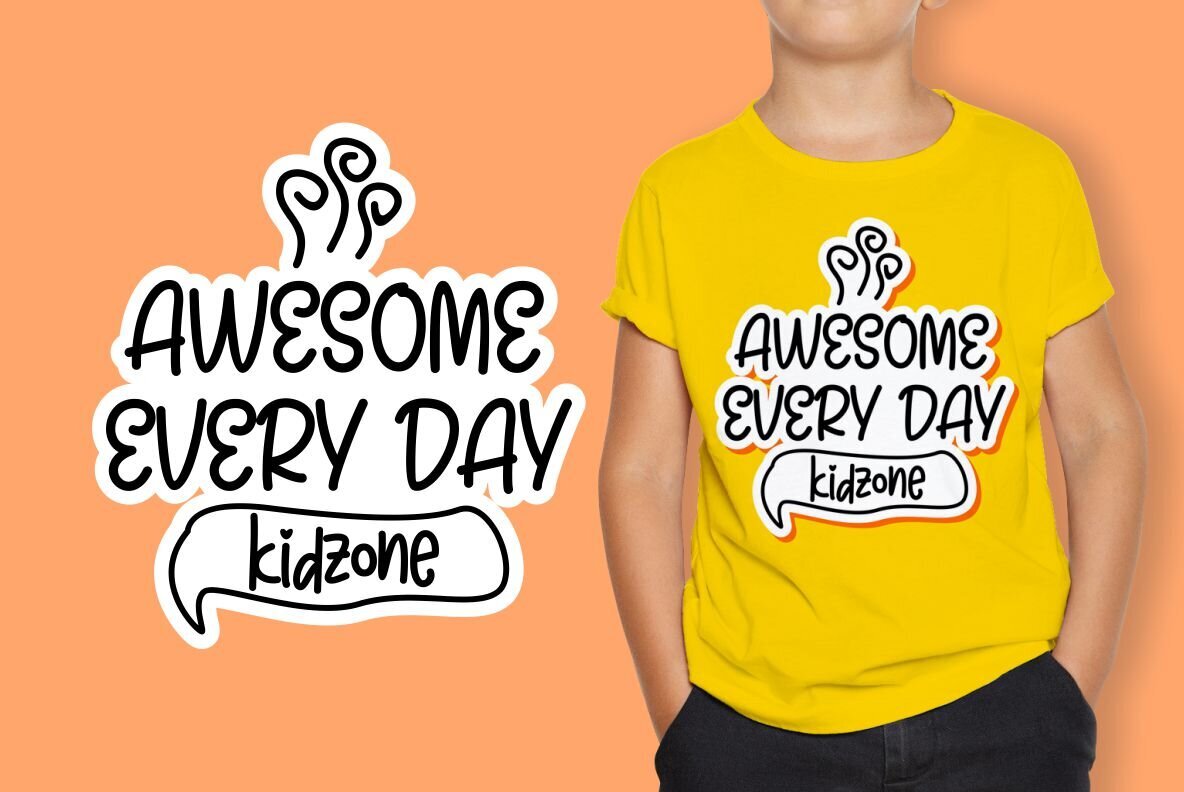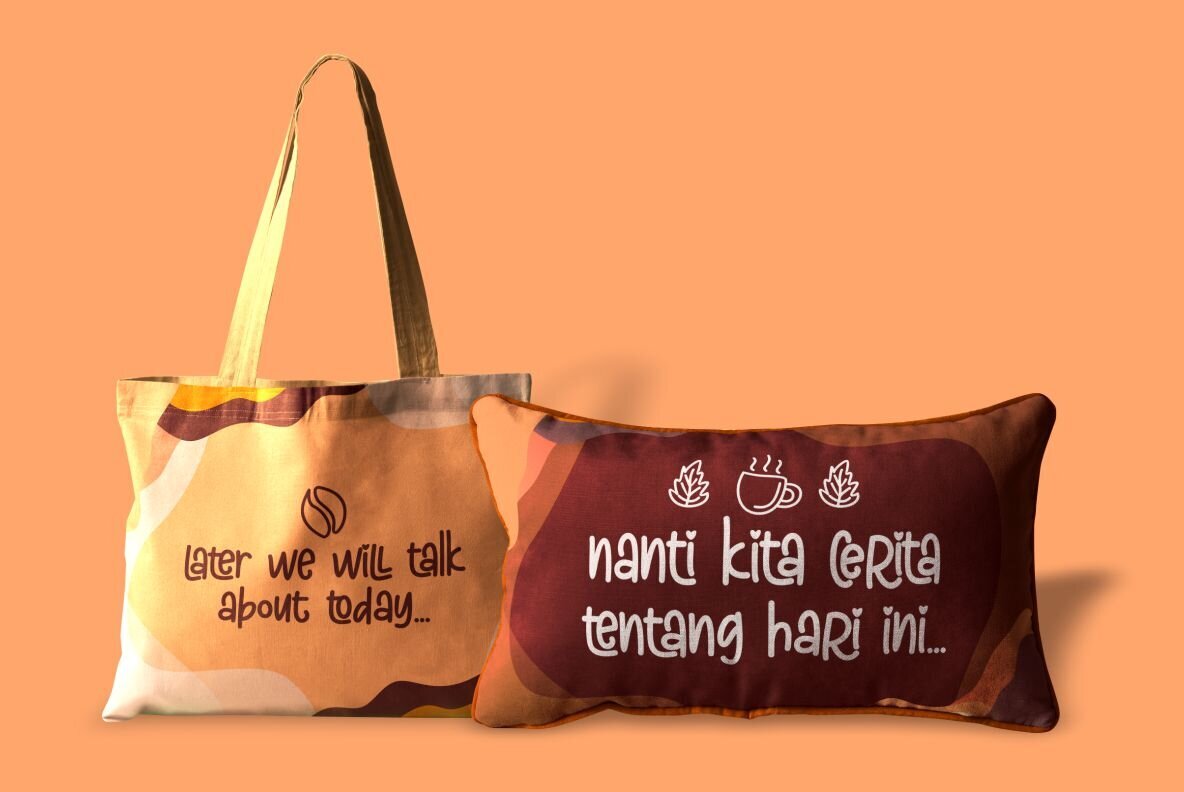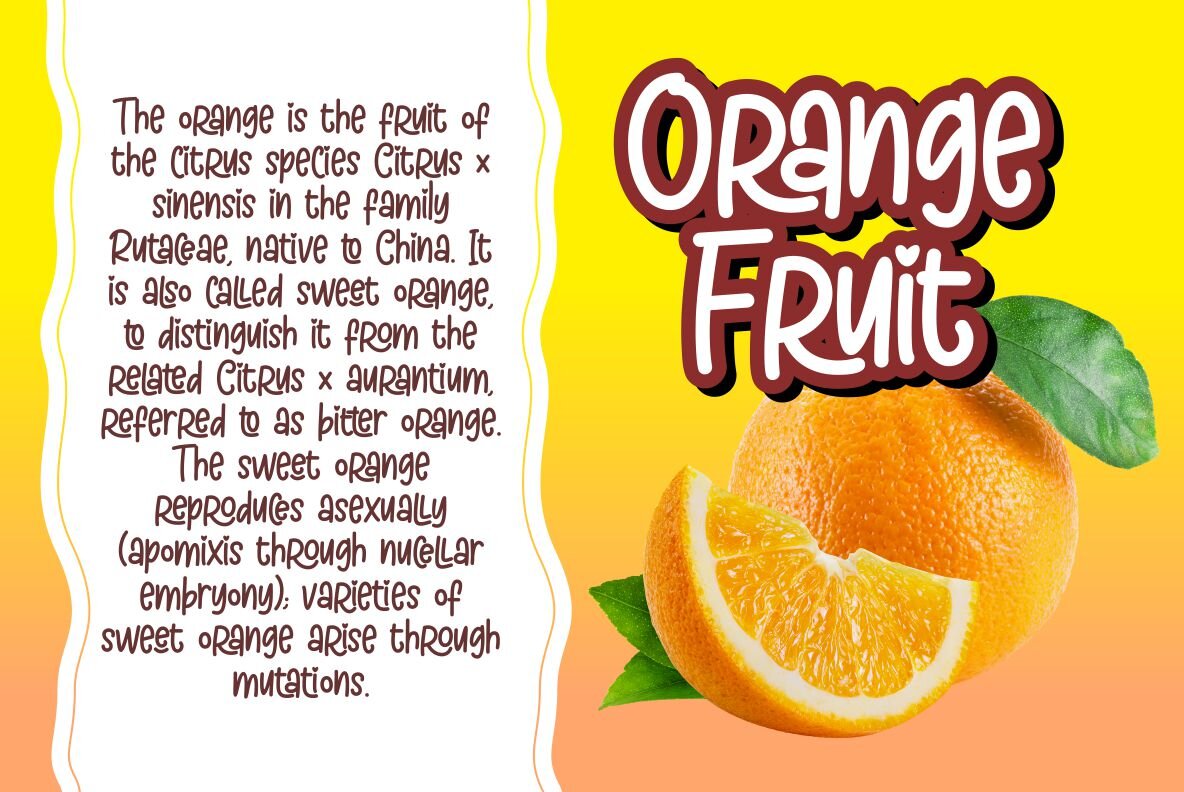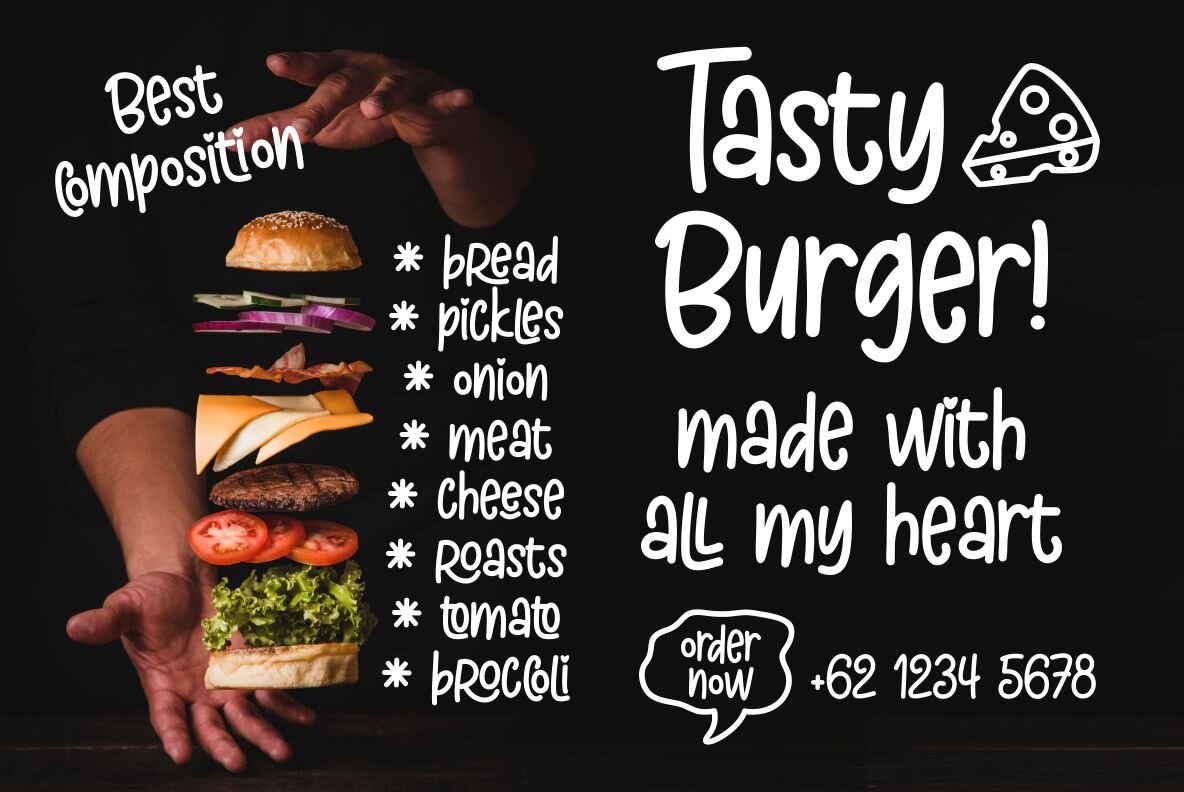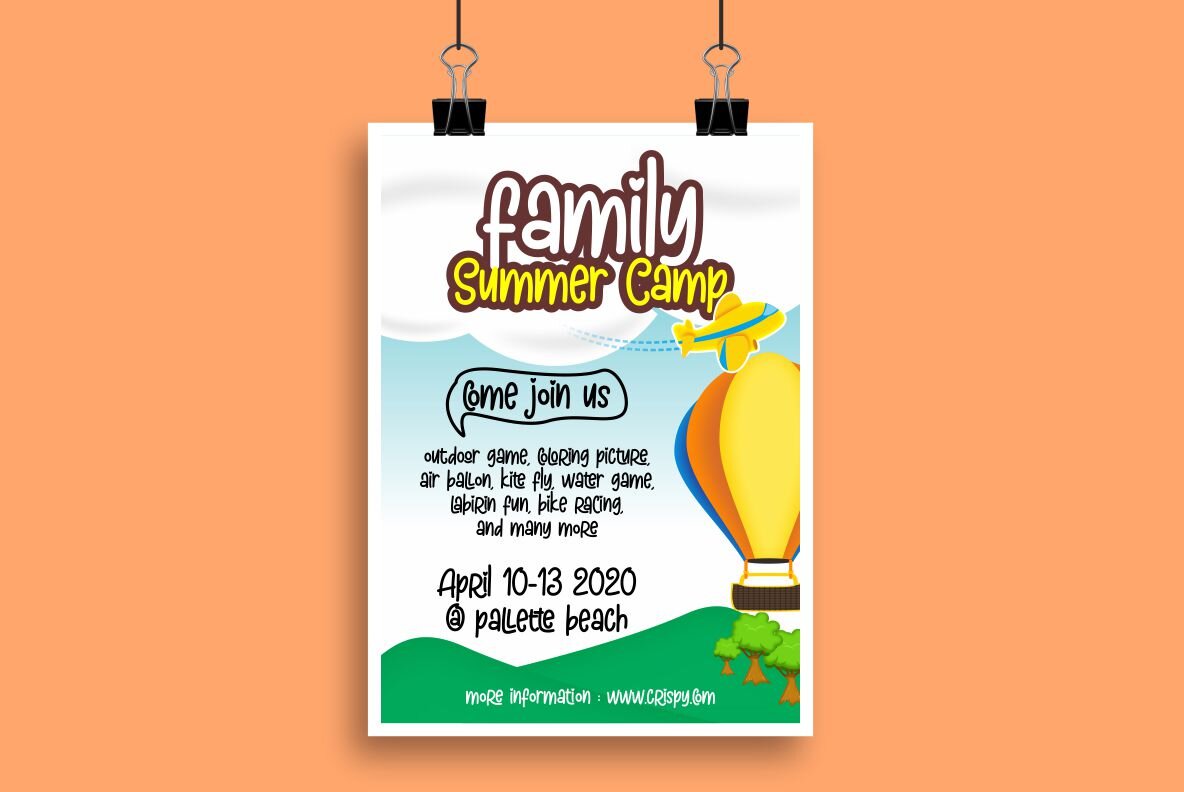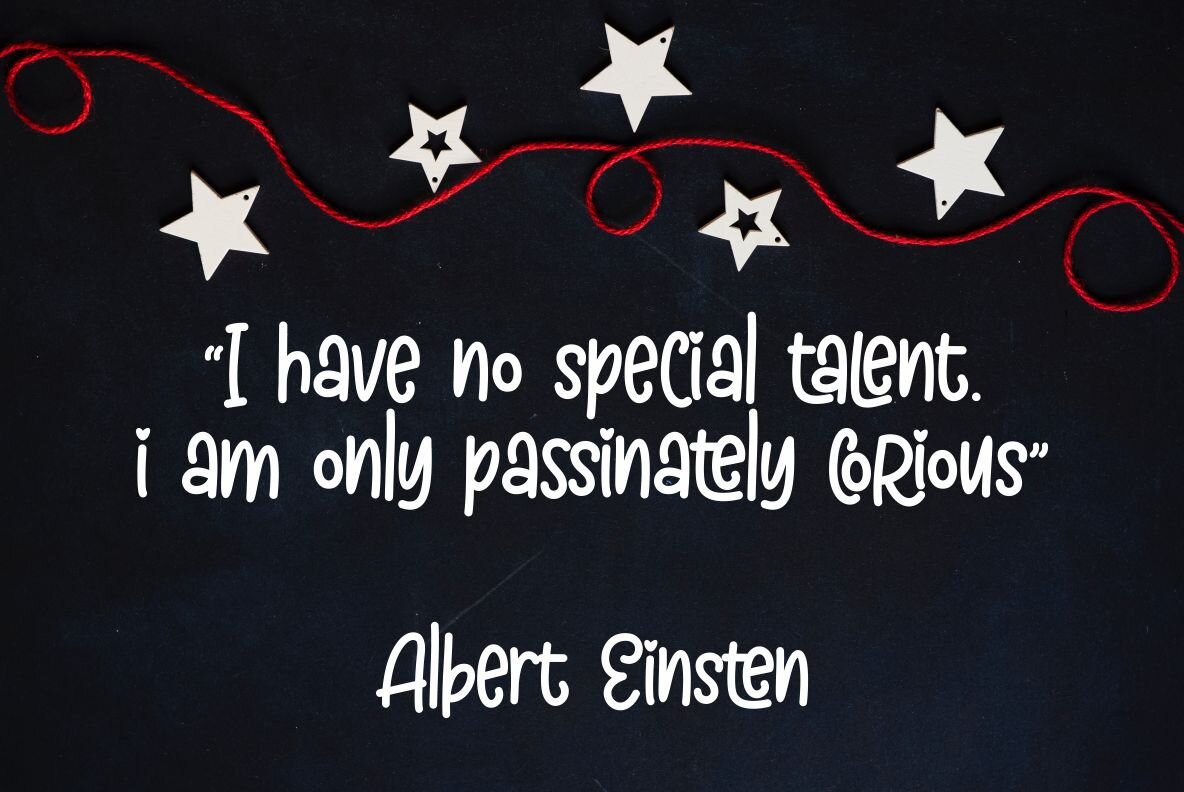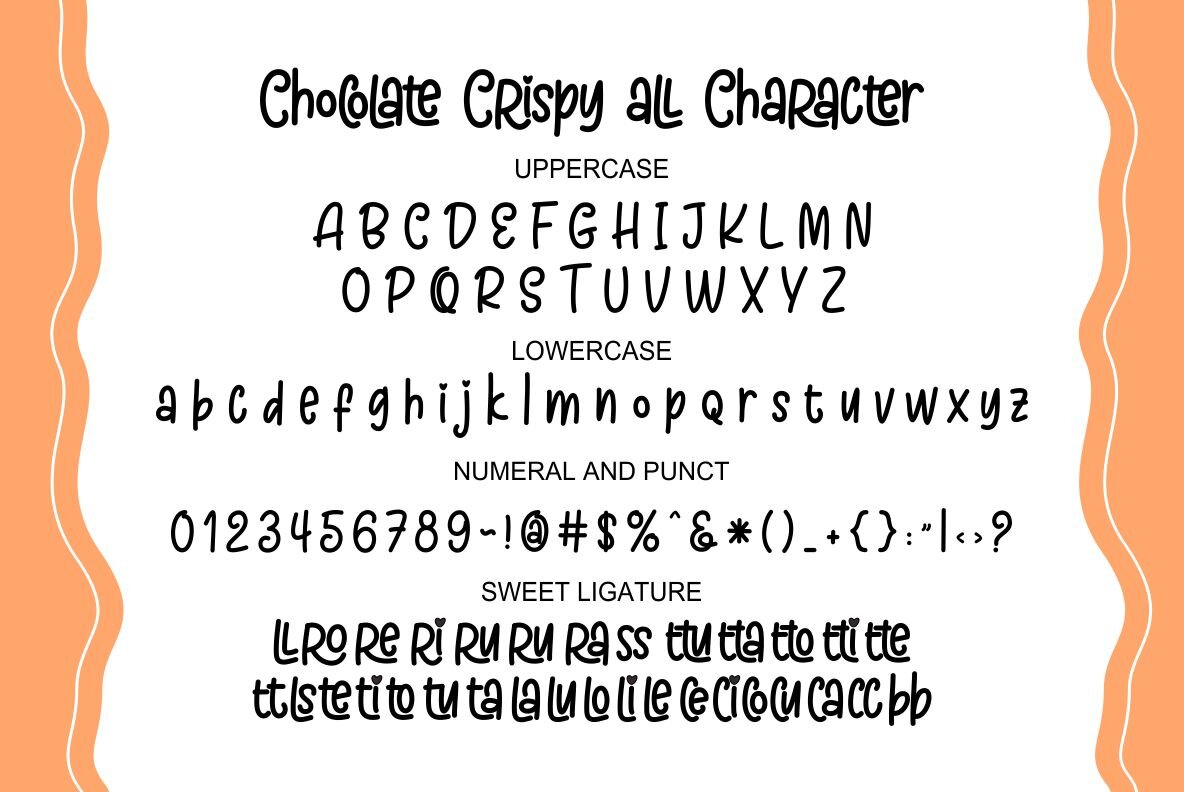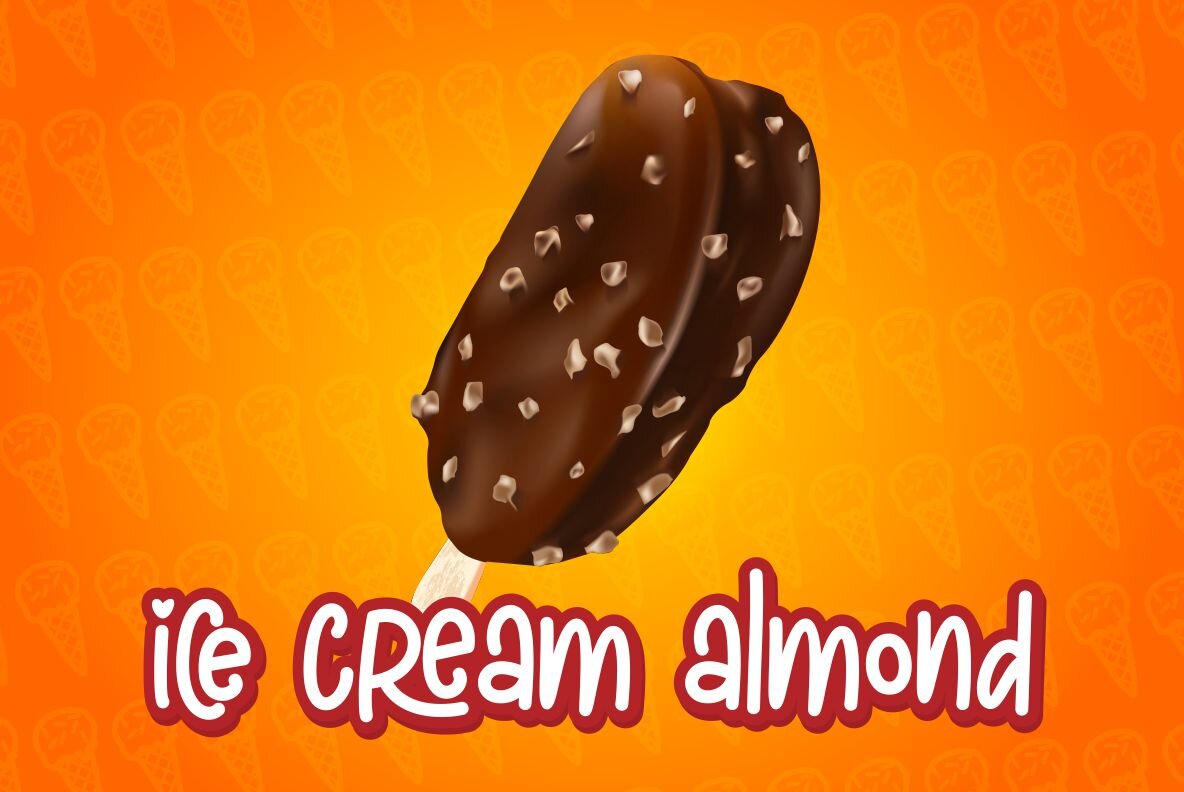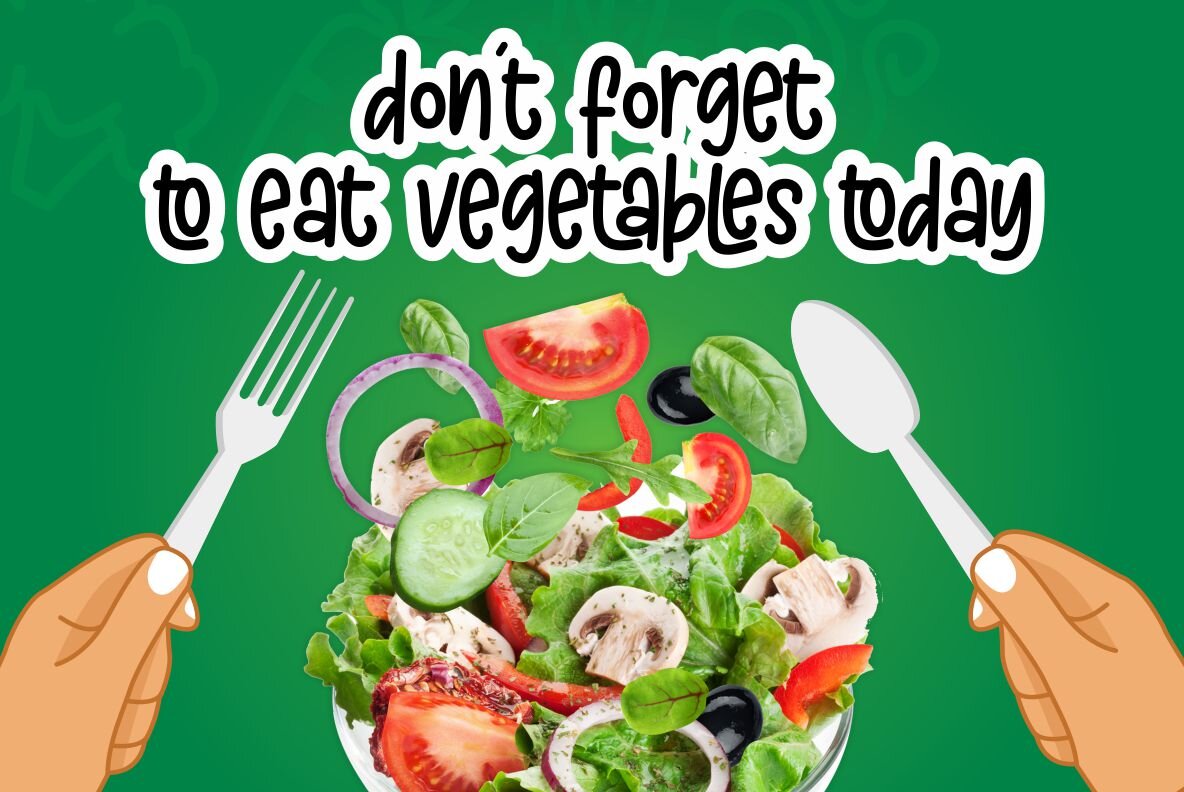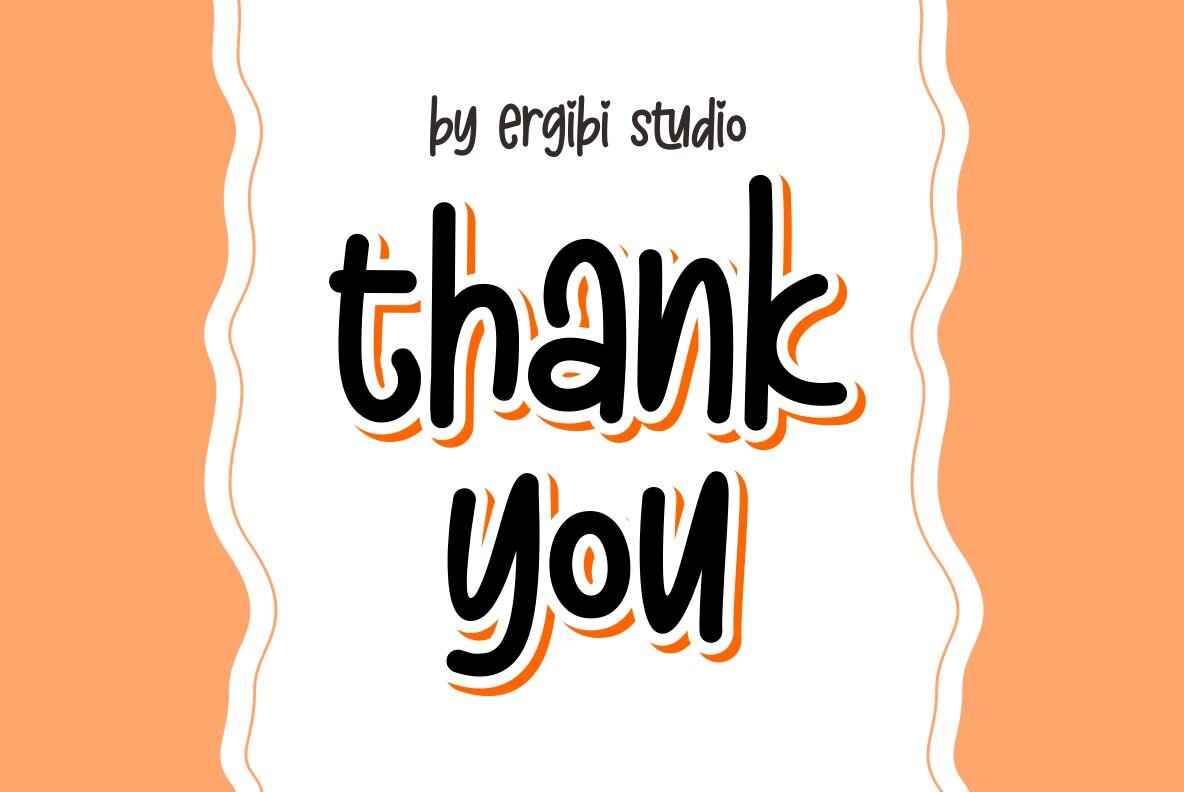
Chocolate Crispy Font
Step into the playful world of typography with Chocolate Crispy, crafted by Ergibi Studio. Ideal for both lighthearted and more formal applications, this typeface brings a delightful charm to your design projects. Whether you're working on posters, invitations, or branding elements like logos and labels, Chocolate Crispy adds a whimsical touch without compromising professional appeal.Chocolate Crispy: A Whimsical Typeface for Versatile Designs